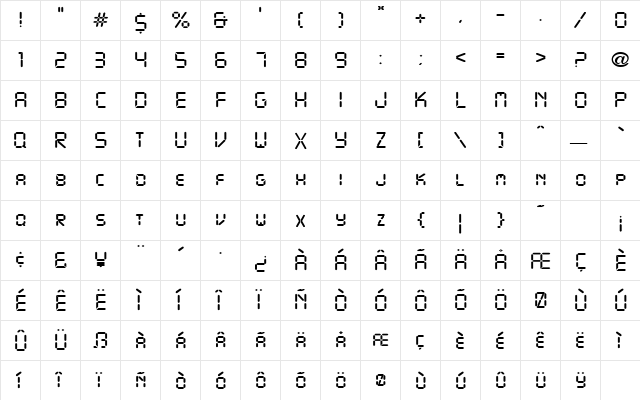
Digital Display Regular
Design Context for Digital Display Typeface
Digital Display has a distinctly futuristic character, with geometric precision and clean angles that feel at home in technology, gaming, and sci-fi contexts.
Pro Tip: Try Digital Display with generous letter-spacing in UI labels and navigation — the geometric forms benefit from room to breathe.